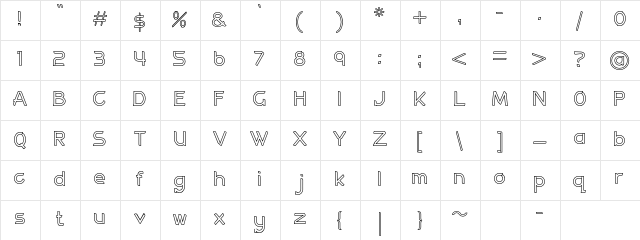
Allenatore Regular Outline Regular
| Designer | Abo Daniel 2018 |
Design Context for Allenatore Regular Outline Typeface
Allenatore Regular Outline is built around its visual character rather than neutral utility — its distinctive forms are designed to make an impression at display sizes.
Font Pairing: Pair with a clean neutral sans-serif for body copy to let Allenatore Regular Outline's character lead without overwhelming the composition.
Pro Tip: Treat Allenatore Regular Outline as the centrepiece of your typographic hierarchy. One strong heading set in a decorative face can carry an entire layout.